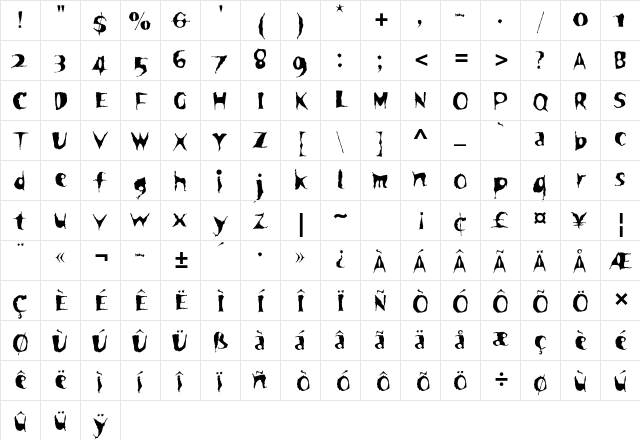
Spooky Std Regular Free Font
Spooky Std Regular
Designer: Timothy Donaldson
Complete Spooky Std Regular glyph index. Displaying only characters natively supported by Spooky Std Regular font.
Design Context for Spooky Std
Spooky Std is a composed and adaptable typeface that performs quietly and consistently across a wide range of design contexts.